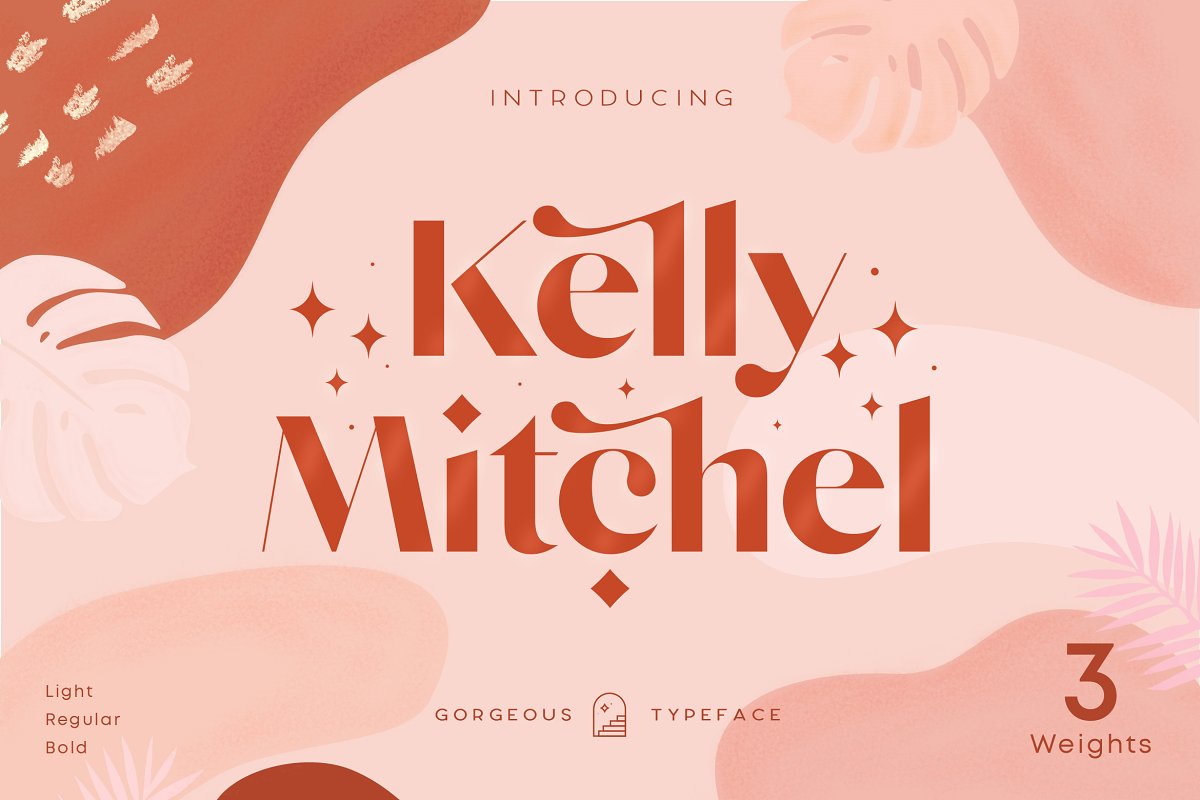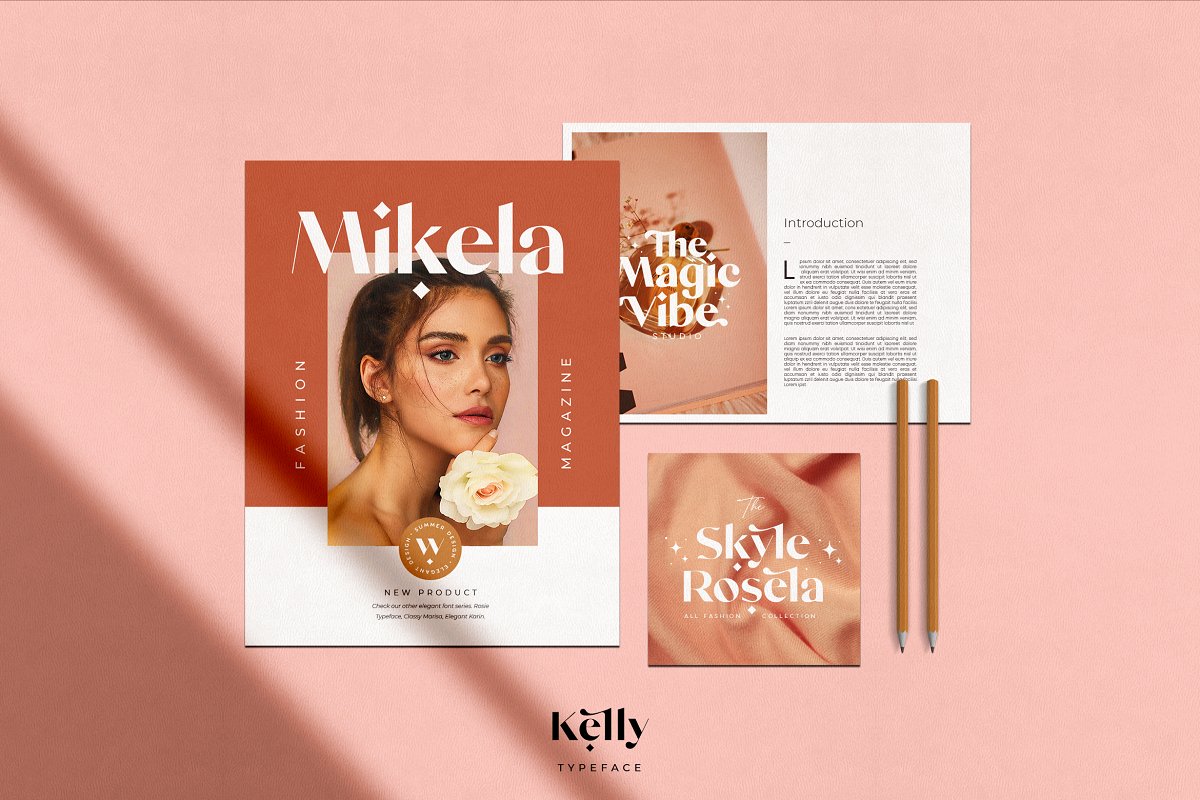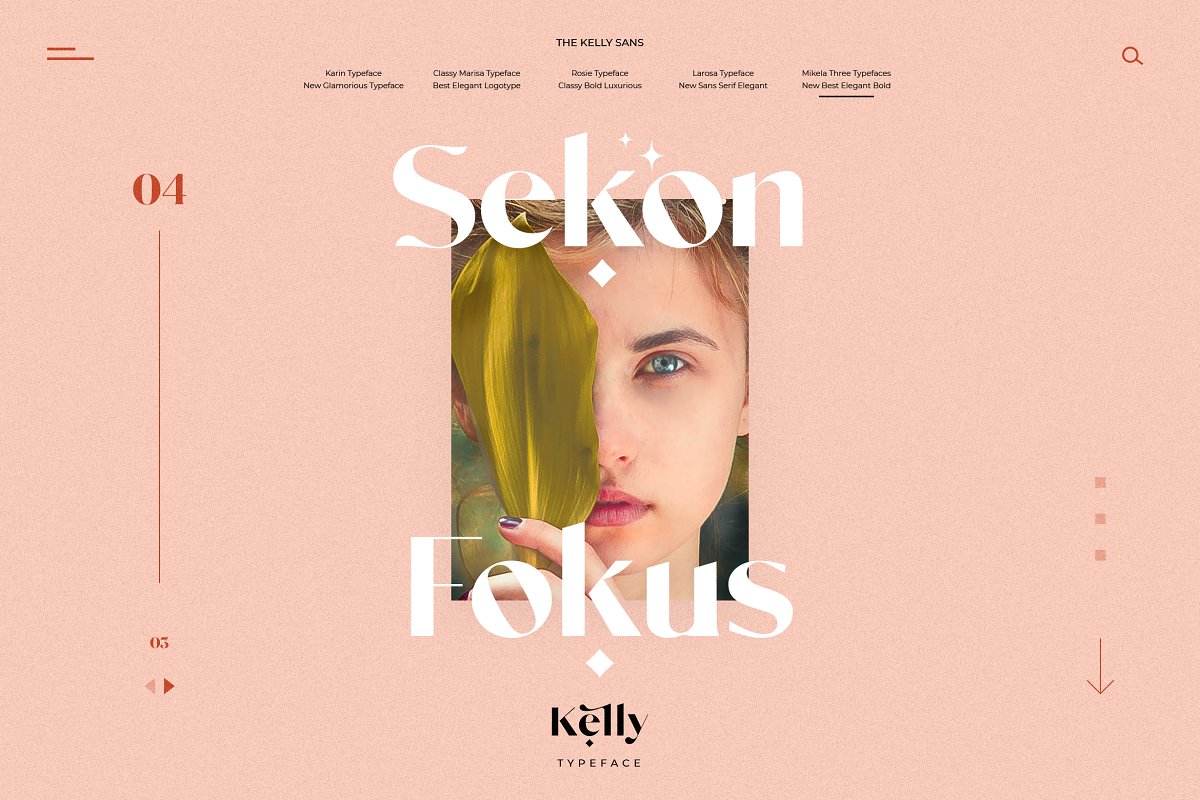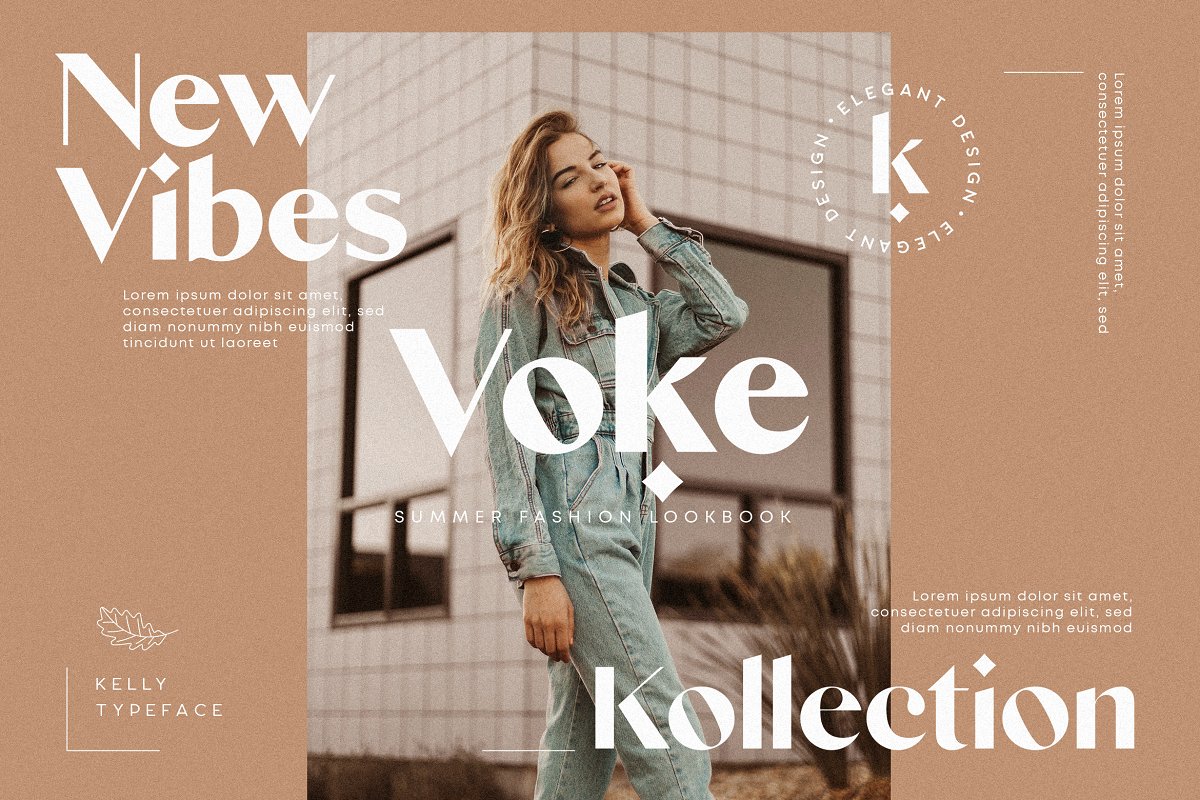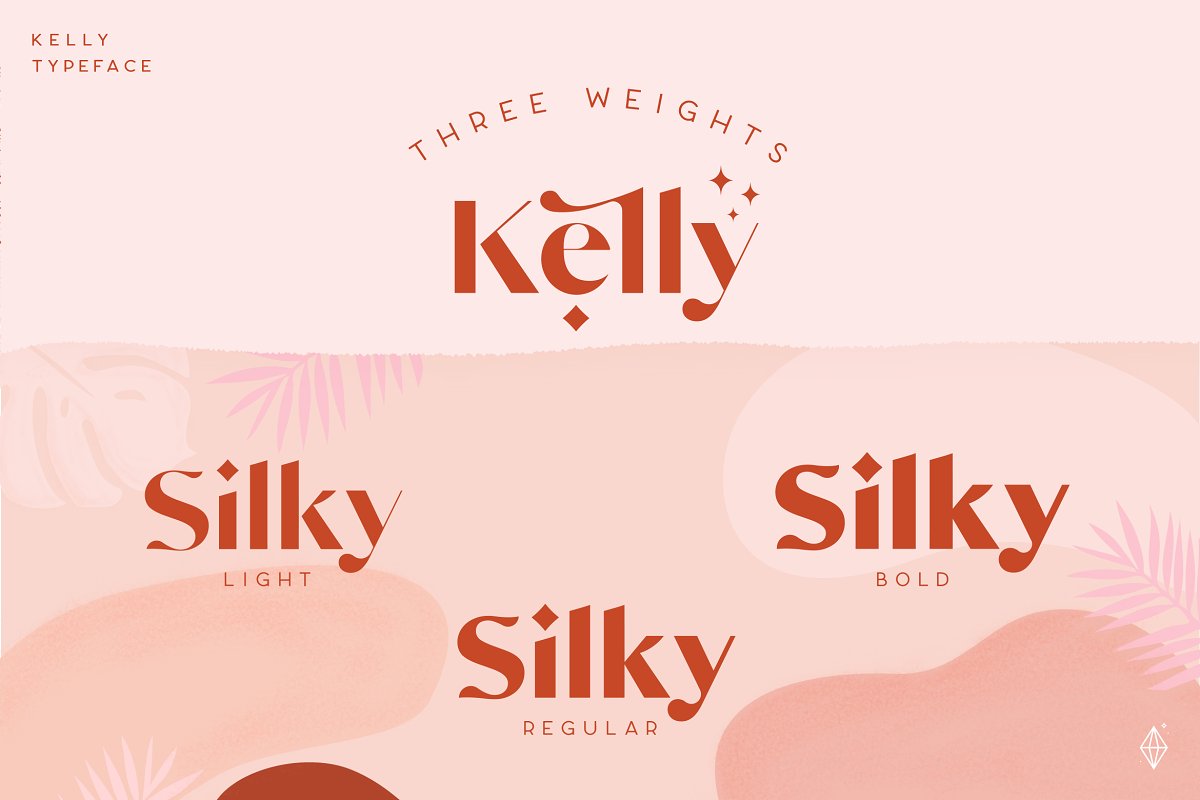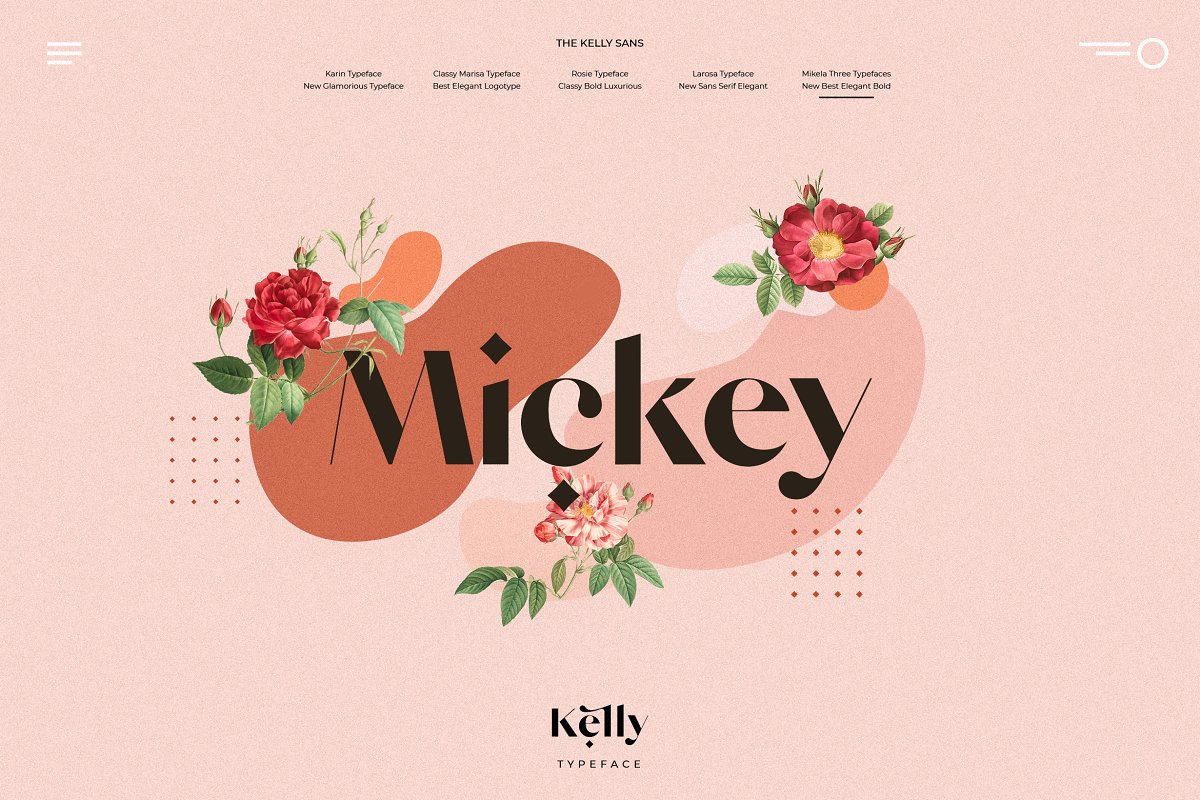
About the Kelly Classy Sans Serif Font
💖👌 Also Check Out Our New Font Paris Lamore here!! ❤️🙌️https://crmrkt, com/J0A4W5Kelly is Sans serif Version of Mikela Typeface, It is a Bold Minimalist Elegant Modern vintage font with beautiful ligatures, tons of special alternative glyphs, ornament and multilingual support, It’s a very versatile font that works great in large and small sizes
Perfect for branding projects, Logo design, Clothing Branding, product packaging, magazine headers, or simply as a stylish text overlay to any background image, Features:3 Weights fontLowercase and UppercaseStylistic Alternates & LigaturesNumerals & PunctuationAccented charactersMultiple Languages SupportedHOW TO ACCESS ALTERNATE CHARACTERSOpen glyphs panel:In Adobe Photoshop go to Window – glyphsIn Adobe Illustrator go to Type – glyphsFollow my shop for upcoming updates including additional glyphs and language support